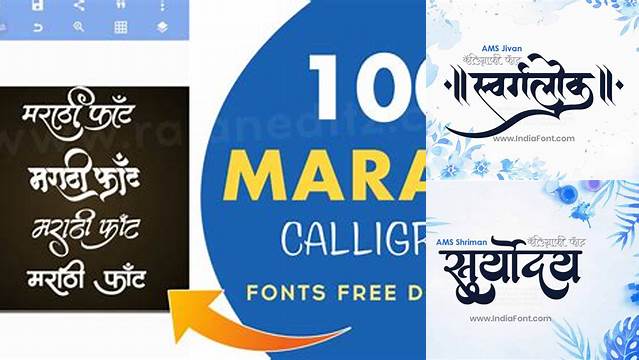
Marathi Calligraphy Fonts For CorelDraw: A Complete Guide
Hey guys! If you're looking to spice up your CorelDraw projects with some beautiful Marathi calligraphy, you've come to the right place. This guide will walk you through everything you need to know, from finding the right fonts to installing and using them effectively. Let's dive in!
1. Understanding Marathi Calligraphy Basics
Before we jump into fonts and CorelDraw, let's quickly touch on the basics of Marathi calligraphy. Marathi calligraphy, like any other form of calligraphy, is an art form that emphasizes the beauty and elegance of written characters. It involves specific strokes, curves, and proportions that give the script its unique aesthetic appeal. Understanding these basics will help you appreciate the fonts you use and make more informed design choices. You'll start to notice the subtle nuances in each font, like the thickness of the strokes or the way the characters connect. Marathi calligraphy is deeply rooted in tradition and culture, often used in religious texts, wedding invitations, and artistic creations. Knowing this background can add depth to your work and give you a better understanding of how to use these fonts respectfully and effectively. Exploring different styles, such as Devanagari (the script used for Marathi), can also broaden your creative horizons. You might even want to try your hand at creating your own calligraphy pieces, which can further enhance your design skills and give you a personal connection to the art form. By familiarizing yourself with the basics, you'll be better equipped to choose the right fonts for your projects and create designs that truly stand out. Plus, it's just fascinating to learn about the history and artistry behind this beautiful script!
2. Top Websites for Marathi Calligraphy Fonts
Finding the perfect Marathi calligraphy fonts can sometimes feel like searching for a needle in a haystack, but fear not! There are some fantastic websites out there that offer a wide variety of options. One of the best places to start is Google Fonts, which has a growing collection of free and open-source fonts, including some beautiful Devanagari options. Another great resource is Font Squirrel, known for its high-quality, free-for-commercial-use fonts. You might also want to check out MyFonts, a vast marketplace with both free and premium fonts. While premium fonts usually come at a cost, they often offer more unique and professionally designed options. Don't forget to explore specialized websites and forums dedicated to Indian fonts; these can be goldmines for finding rare and unique Marathi calligraphy fonts. When browsing these sites, pay attention to the font licenses. Make sure you understand whether a font is free for personal use, commercial use, or requires attribution. Also, read user reviews and ratings to get an idea of the font's quality and usability. With a little bit of digging, you'll be able to curate a collection of stunning Marathi calligraphy fonts that will elevate your CorelDraw projects. Happy font hunting, guys!
6. Creating Text Objects with Marathi Fonts
Now that you have your Marathi calligraphy fonts installed and you understand the licensing, let's get to the fun part: creating text objects in CorelDraw! CorelDraw offers several tools for creating and manipulating text, including the Text tool and the Artistic Text tool. The Text tool is best for creating paragraph text, while the Artistic Text tool is ideal for creating shorter text elements like headlines or titles. To create text with a Marathi calligraphy font, select the Text tool or the Artistic Text tool, click on the drawing page, and start typing. Then, select the text and choose your desired Marathi calligraphy font from the font list. You can adjust the font size, style (bold, italic), and color using the formatting options in the Property Bar. CorelDraw also allows you to add special effects to your text, such as shadows, outlines, and glows. Experiment with these effects to enhance the visual appeal of your Marathi calligraphy text. For more advanced text manipulation, you can convert the text to curves. This allows you to edit the individual letter shapes and create unique typographic designs. However, keep in mind that once you convert text to curves, you can no longer edit the text itself. By mastering these techniques, you'll be able to create stunning text objects with Marathi calligraphy fonts in CorelDraw. Unleash your creativity!
7. Adjusting Kerning and Tracking for Calligraphy
When working with Marathi calligraphy fonts, kerning and tracking are your best friends. Kerning refers to the spacing between individual letters, while tracking refers to the overall spacing between all letters in a word or phrase. Adjusting these settings can dramatically improve the readability and visual appeal of your text. Calligraphy fonts often have unique spacing requirements due to their intricate letterforms. In CorelDraw, you can adjust kerning by placing the cursor between two letters and using the Shape tool to move the letters closer together or further apart. You can adjust tracking by selecting the text and using the Character Spacing option in the Property Bar. Experiment with different kerning and tracking values to find the optimal spacing for your Marathi calligraphy font. Pay attention to areas where letters are too close together or too far apart. In general, you want to create a consistent and balanced spacing that allows the text to flow smoothly. Kerning and tracking are especially important when working with headlines or titles. A well-kerned and tracked headline will grab the reader's attention and make a strong visual statement. Don't be afraid to spend some time fine-tuning these settings. The extra effort will pay off in the end. Mastering kerning and tracking is a crucial skill for any designer working with calligraphy fonts. It's the secret to creating text that looks both beautiful and professional. Get those adjustments perfect, guys!
8. Adding Effects to Marathi Calligraphy Text
Ready to take your Marathi calligraphy text to the next level? CorelDraw offers a wide range of effects that can add depth, dimension, and visual interest to your designs. Some popular effects include shadows, outlines, glows, bevels, and distortions. To add an effect to your text, select the text object and go to the Effects menu. Choose the effect you want to apply and adjust the settings to your liking. Shadows can create a sense of depth and make your text stand out from the background. Outlines can add definition and visual contrast. Glows can create a soft, ethereal effect. Bevels can give your text a three-dimensional appearance. Distortions can create unique and eye-catching shapes. Experiment with different effects and combinations to find the perfect look for your Marathi calligraphy text. Keep in mind that less is often more. Too many effects can make your text look cluttered and overwhelming. Use effects sparingly and strategically to enhance the visual appeal of your design. Another tip is to use effects that complement the style of the calligraphy font. For example, a traditional calligraphy font might look great with a subtle shadow or bevel, while a more modern font might benefit from a bolder outline or distortion. With a little creativity and experimentation, you can use effects to transform your Marathi calligraphy text into a stunning visual masterpiece. Time to get your creative juices flowing!
9. Exporting Your CorelDraw Project with Marathi Fonts
So, you've created a beautiful design using Marathi calligraphy fonts in CorelDraw, and now you're ready to share it with the world. But before you do, it's important to export your project correctly to ensure that the fonts display properly on other computers or devices. When exporting your project, you have several options, including PDF, JPEG, PNG, and EPS. PDF is generally the best option for preserving the integrity of your fonts and vector graphics. When exporting to PDF, make sure to embed the fonts in the document. This will ensure that the fonts display correctly even if the recipient doesn't have the fonts installed on their computer. To embed fonts in CorelDraw, go to File > Publish to PDF. In the PDF settings dialog box, go to the Objects tab and check the "Embed fonts" option. You can also convert your text to curves before exporting. This will ensure that the text displays correctly, but it will also make the text uneditable. To convert text to curves, select the text object and go to Arrange > Convert to Curves. If you're exporting your project for the web, JPEG or PNG might be better options. However, keep in mind that these formats are raster-based, so they may not preserve the sharpness of your fonts and vector graphics as well as PDF. When exporting to JPEG or PNG, make sure to choose a high resolution to minimize pixelation. By following these tips, you can ensure that your Marathi calligraphy fonts display beautifully no matter where your project is viewed. Happy exporting, guys!
30. Common Mistakes to Avoid When Using Marathi Calligraphy
When using Marathi calligraphy, it's important to avoid certain common mistakes that can detract from the beauty and effectiveness of your designs. One common mistake is using fonts that are not designed for calligraphy. These fonts may lack the necessary stroke variations and flourishes to create a truly calligraphic look. Another mistake is using too many different fonts in a single design. This can create a cluttered and disjointed appearance. It's generally best to stick to one or two fonts that complement each other. Pay attention to the kerning and tracking of the letters. Incorrect spacing can make the text difficult to read and detract from the overall aesthetic. Avoid using overly ornate or decorative fonts for large blocks of text. These fonts can be difficult to read and can overwhelm the viewer. Be mindful of the cultural context of your design and avoid using calligraphy in ways that could be considered disrespectful or inappropriate. Proofread your text carefully to ensure that there are no errors in spelling or grammar. Errors can undermine the credibility of your design. By avoiding these common mistakes, you can create Marathi calligraphy designs that are both beautiful and effective. Remember that practice makes perfect, so don't be afraid to experiment and learn from your mistakes.